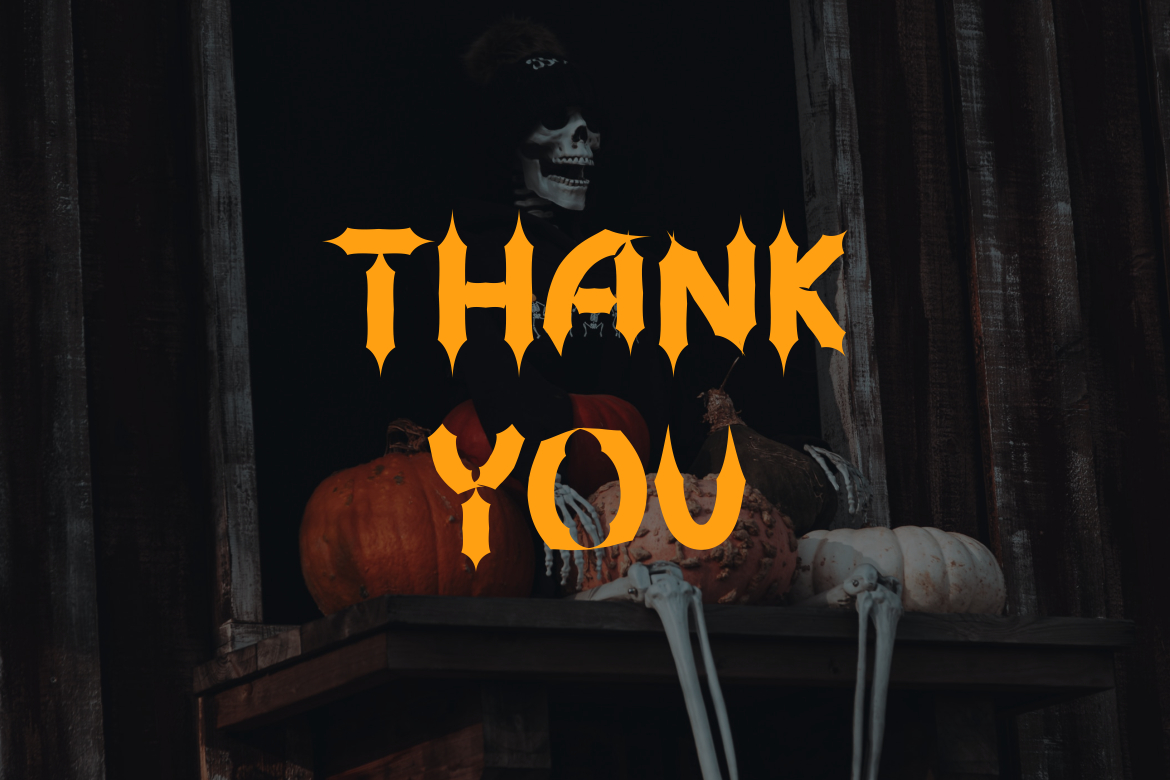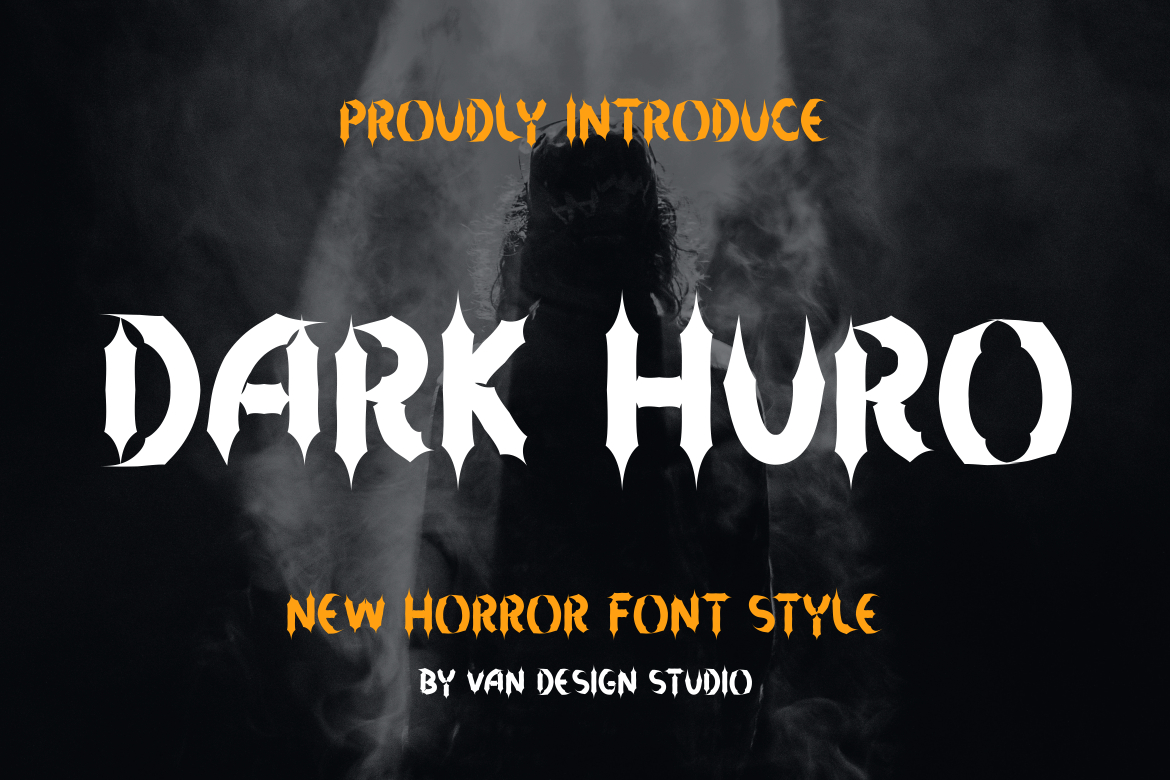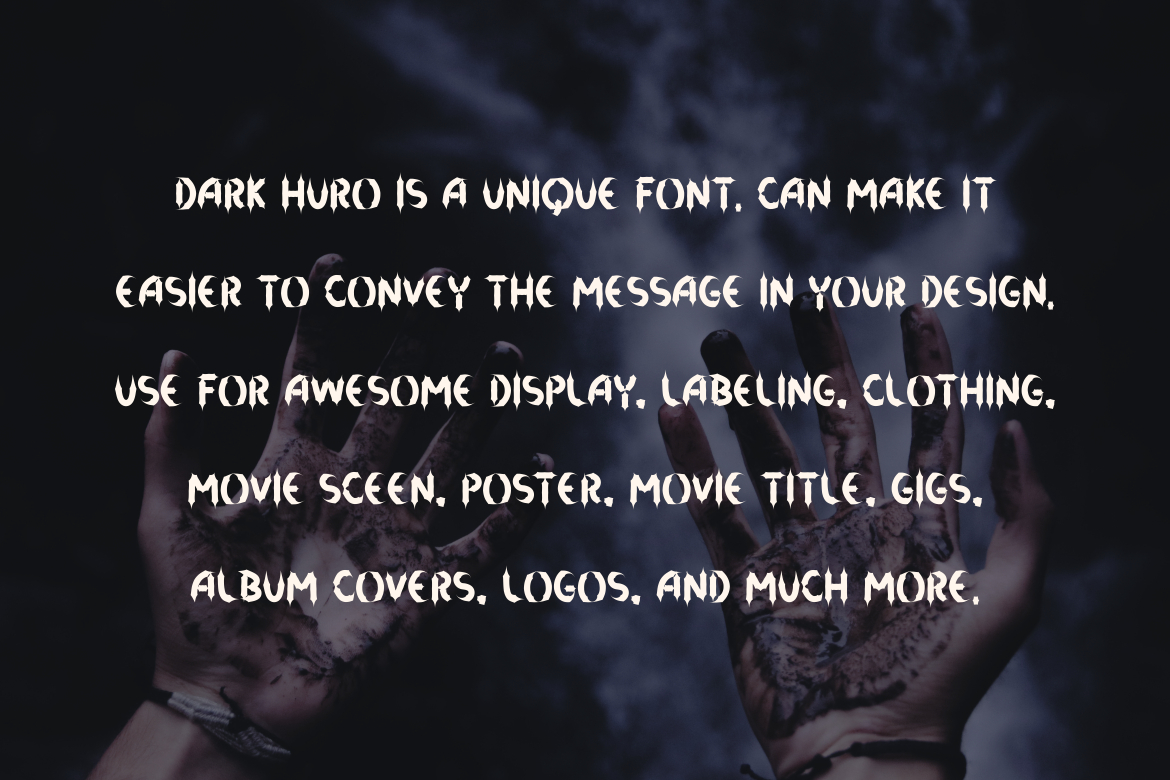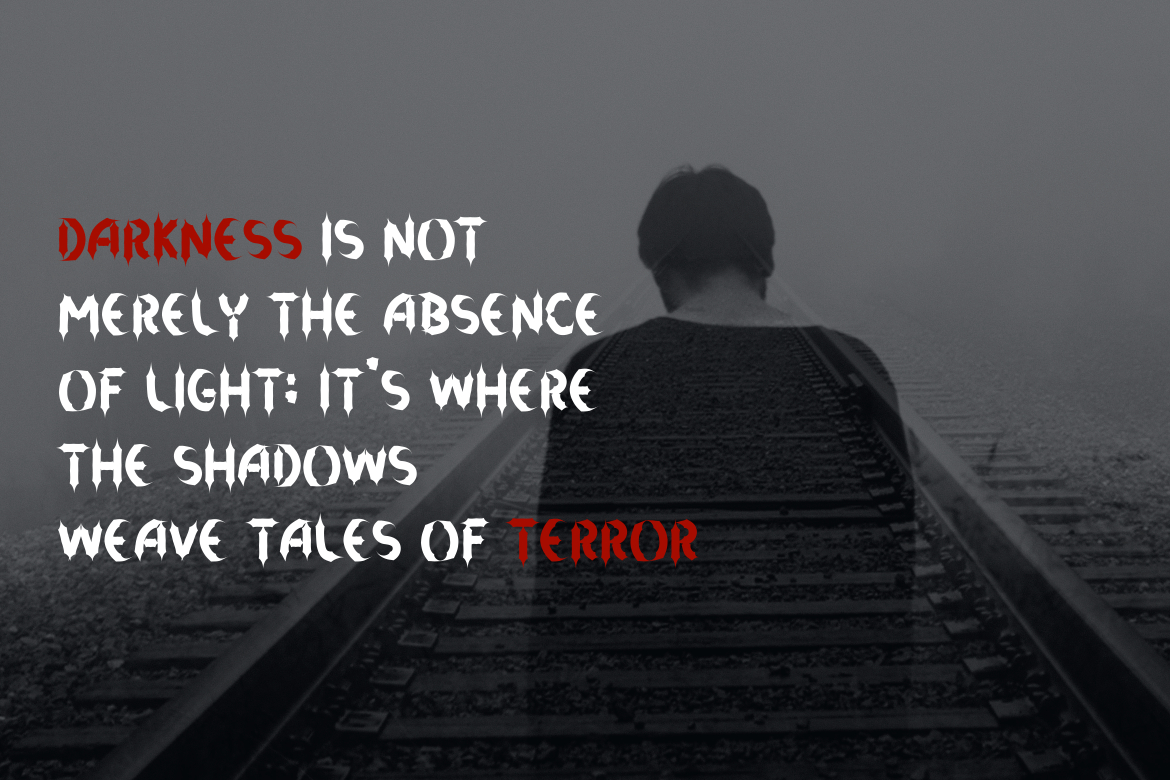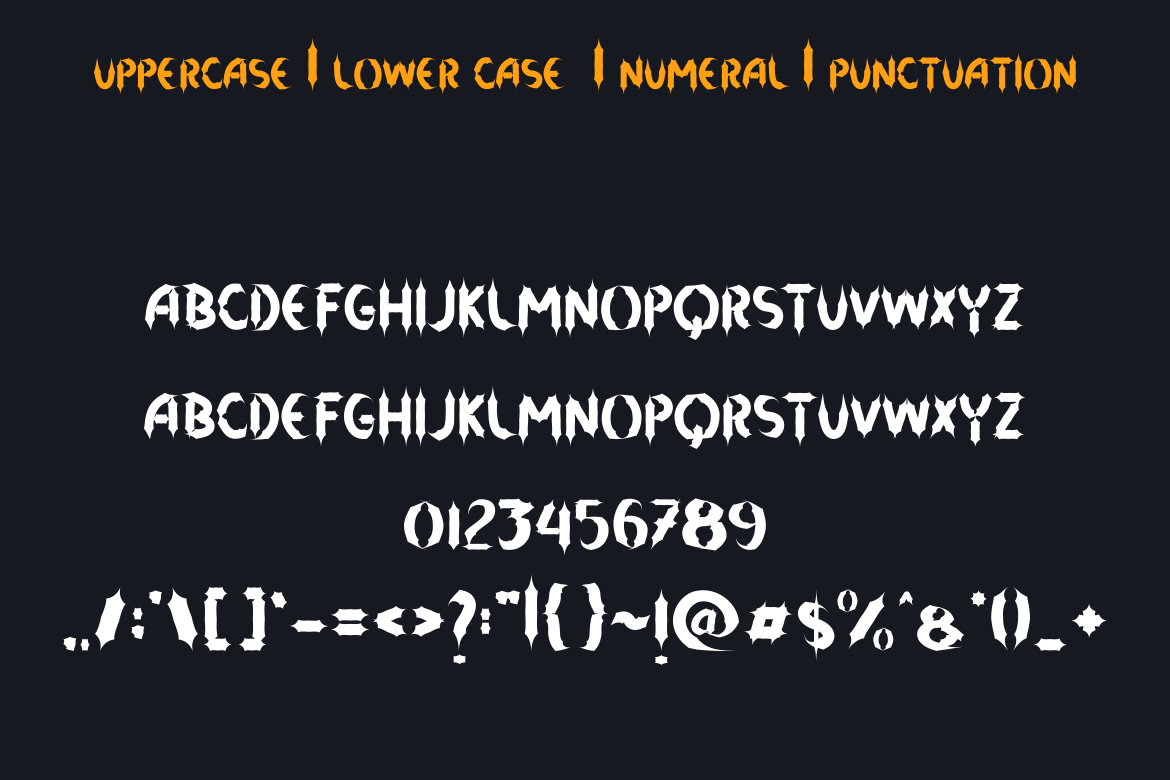
Dark Huro Font
About Dark Huro Font
Dark Huro is an incredibly cool and unique blackletter font. It has a modern yet whimsical style and it will undoubtedly immerse your designs into a magical world.